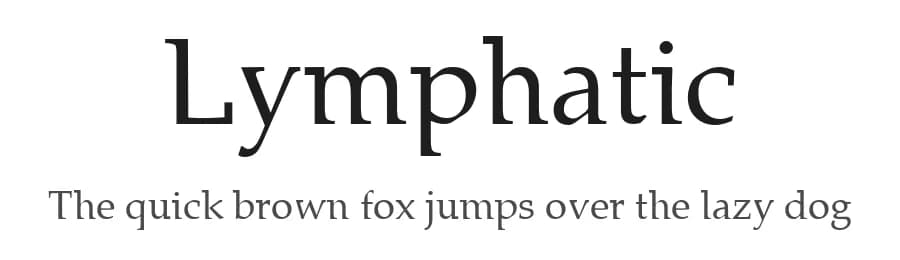
About Lymphatic Font
Lymphatic is a serif font designed by Sacred Nipple. It includes 233 glyphs, a regular weight, TTF (TrueType) format, and 217 languages. Lymphatic is free to download; check the license details on this page before commercial use. Serif fonts like Lymphatic work best for body text, editorial layouts, book covers, and classic branding.
Lymphatic Font is a versatile serif font that works for both headings and body text. Pair it with a contrasting sans-serif or slab serif font to add visual interest and a clear distinction between titles and body copy.
Lymphatic Font
Lymphatic Font is a serif typeface by Sacred Nipple, ideal for logos, invitations, branding, and creative projects.